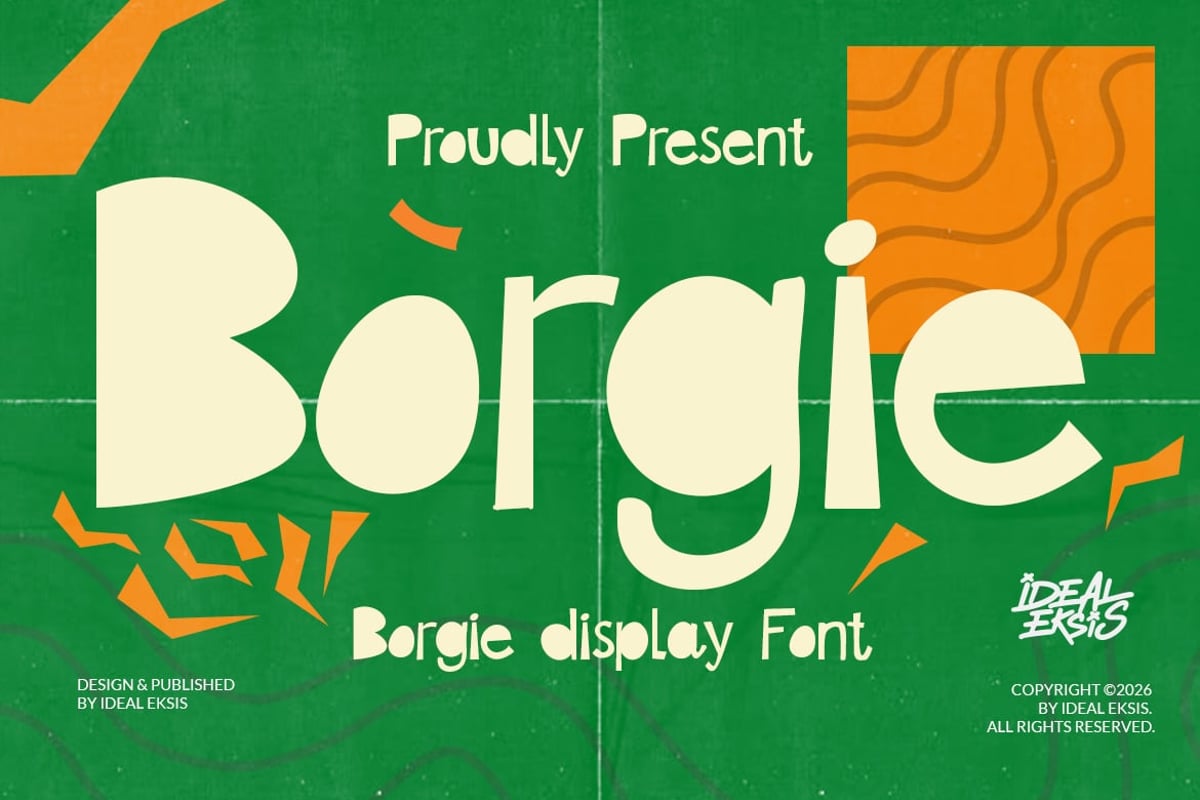
Borgie - Playful Display Font
Add whimsical charm to your designs with Borgie's bold, organic letterforms and expressive personality.
Borgie is a distinctive display font that features irregular, organic letterforms with a playful and whimsical character. Its bold, expressive design makes it perfect for headlines, posters, and creative projects that need to stand out.
- Uppercase (All Caps)
- Alternate
- Numerals
- Punctuation